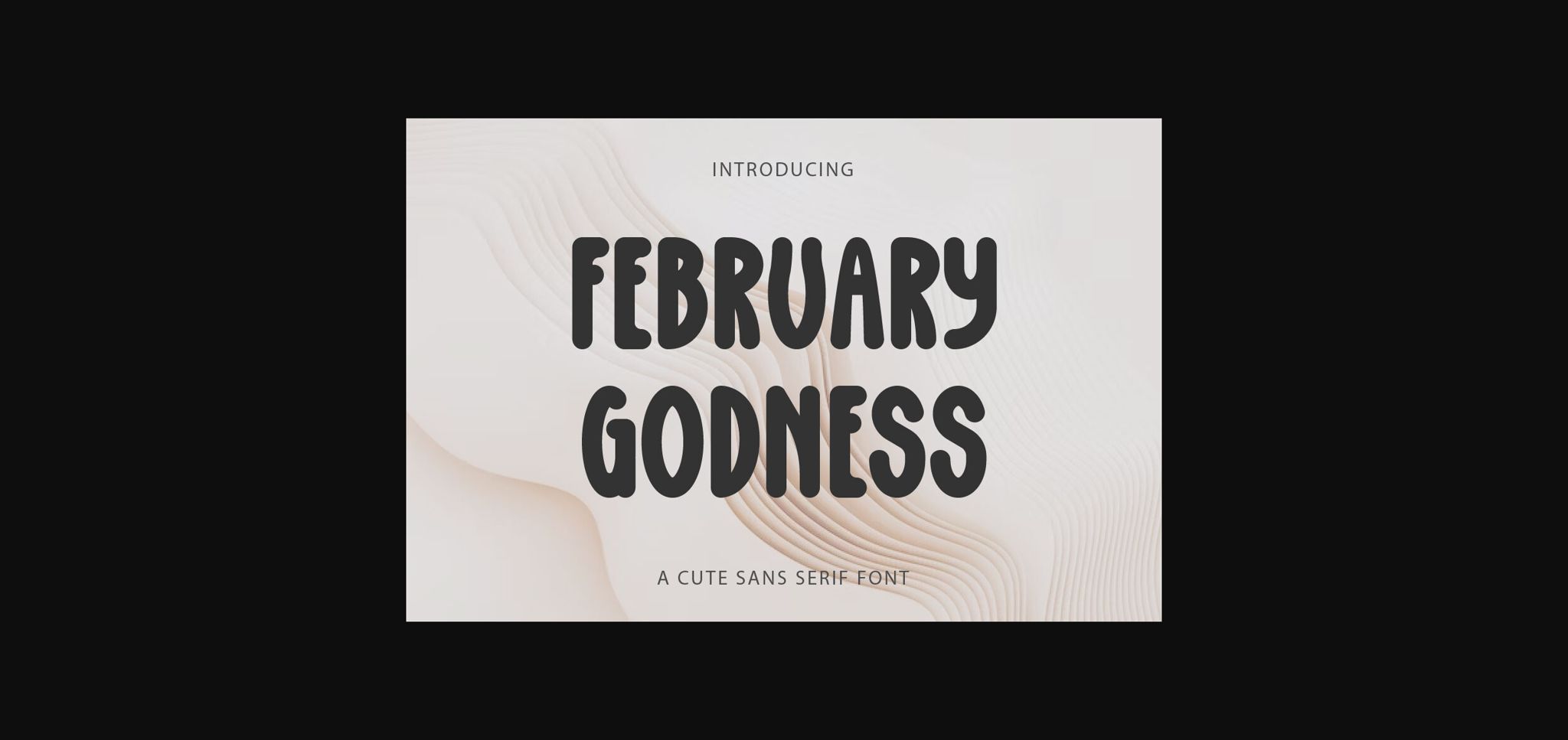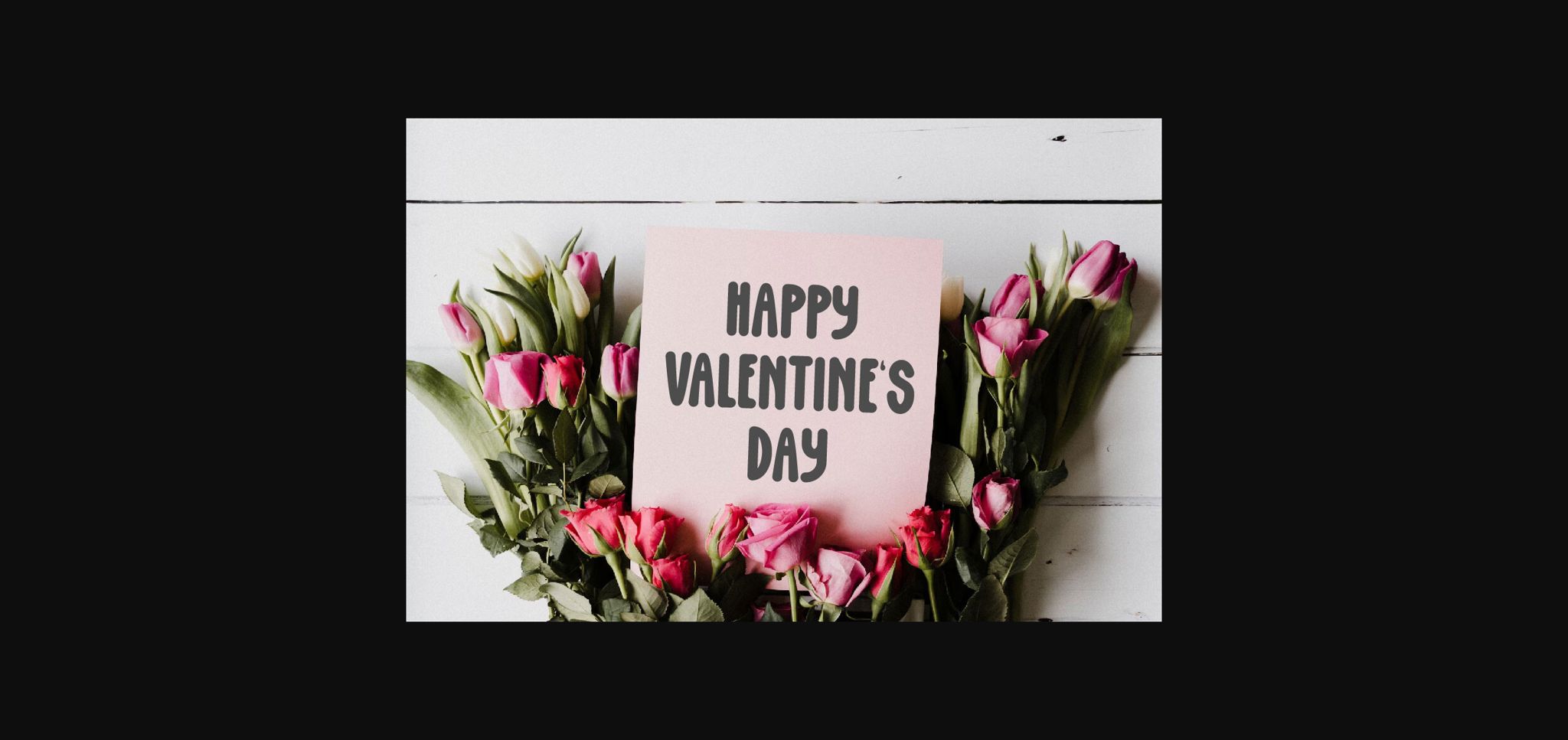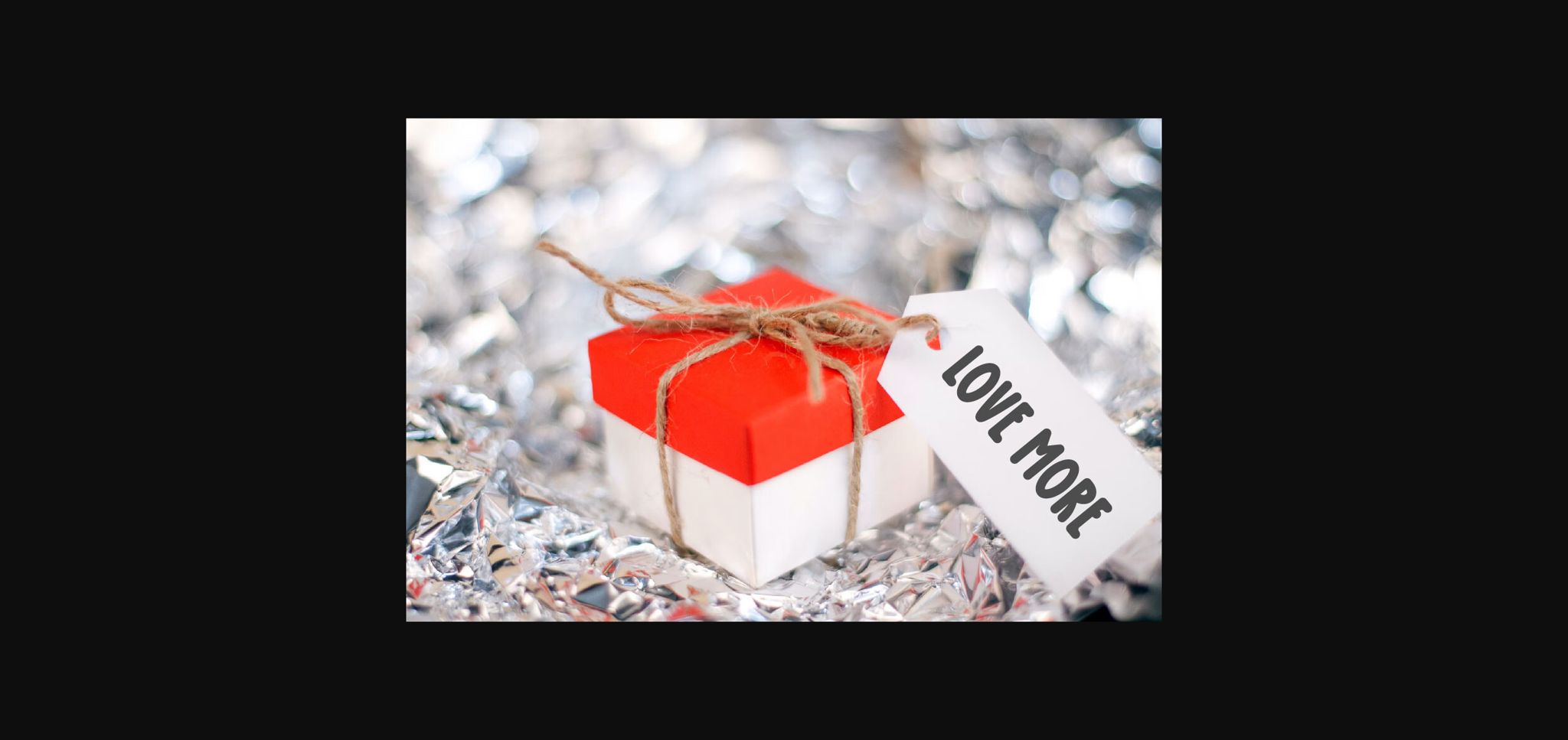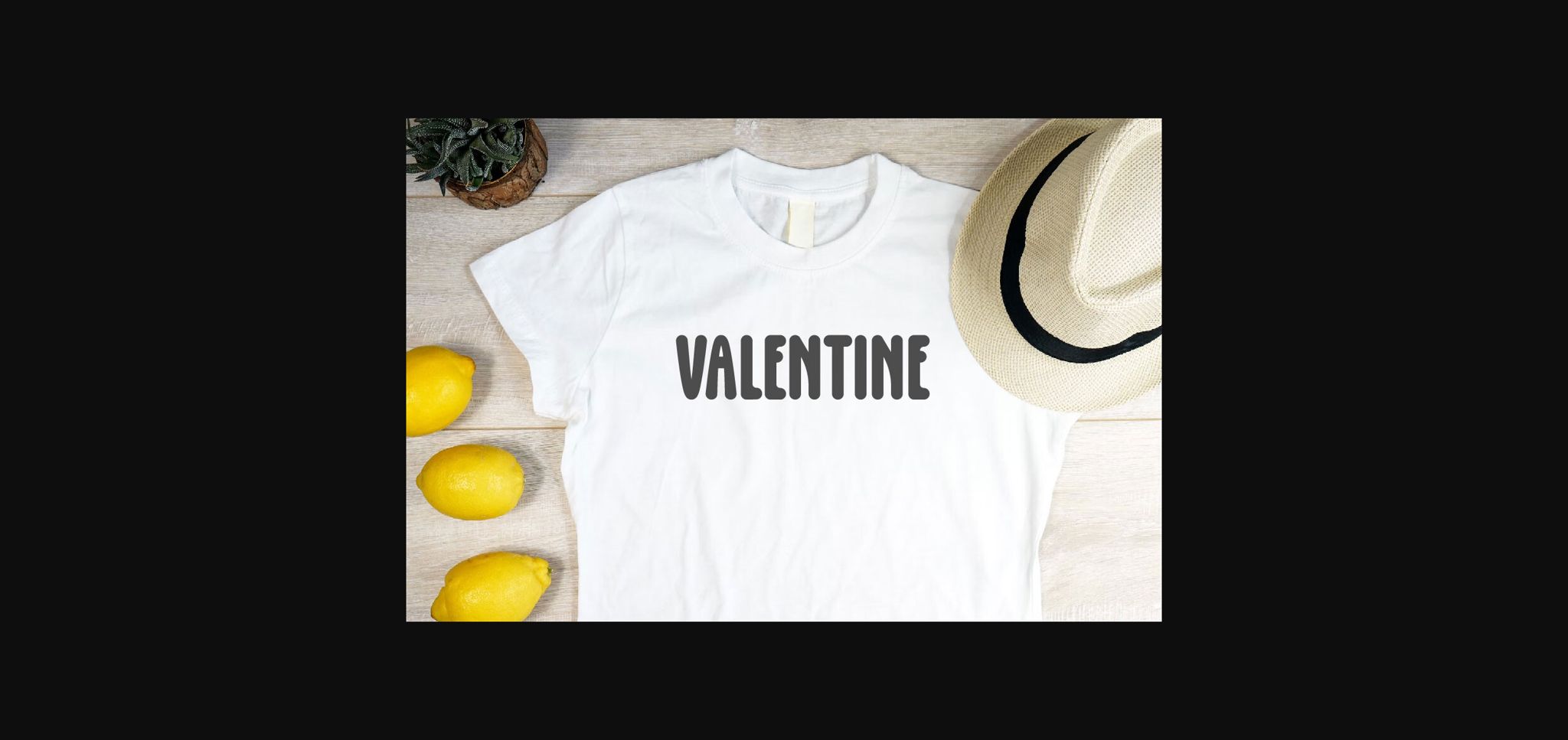
About February Godness Font
February Godness is a cool and cute sans serif font, this font is perfect for greeting cards, wedding, gift labels, mugs, t-shirts, quotes, presentations, digital design, frame quotes, packaging, label, etc. Use it to create spectacular and interesting designs!